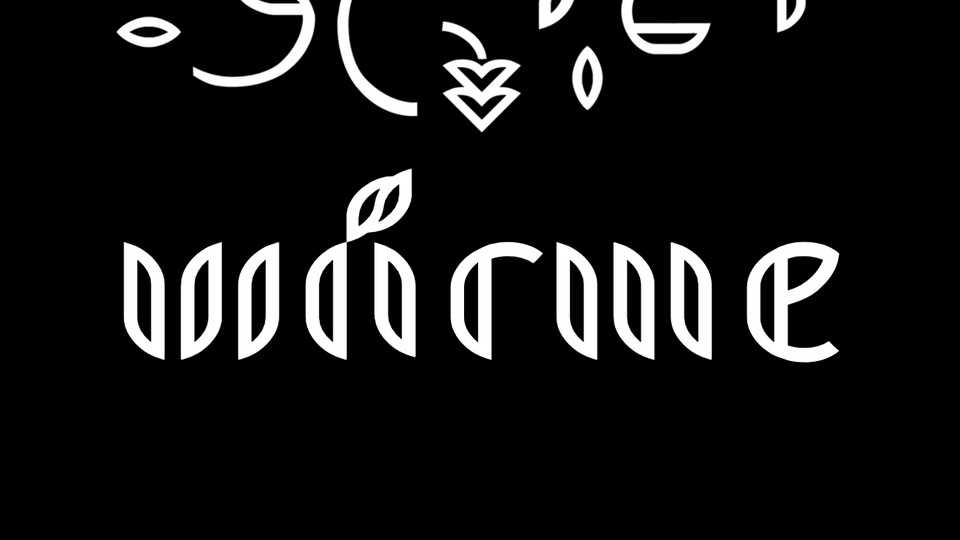
Download Waerme font, a decorative display typeface that follows a form grid out of strong geometrics in contrast with vivid shapes.
Designer: Ingmar Koglin